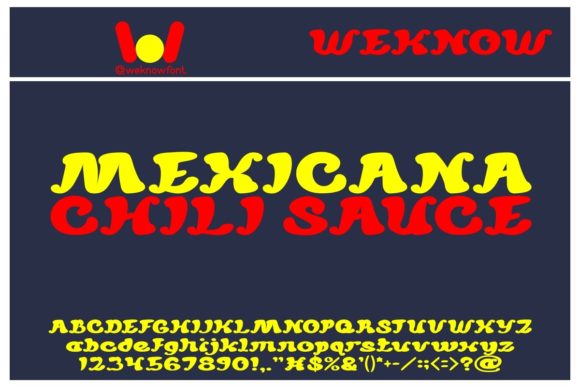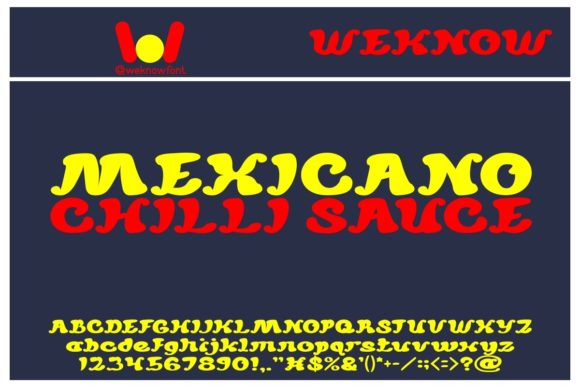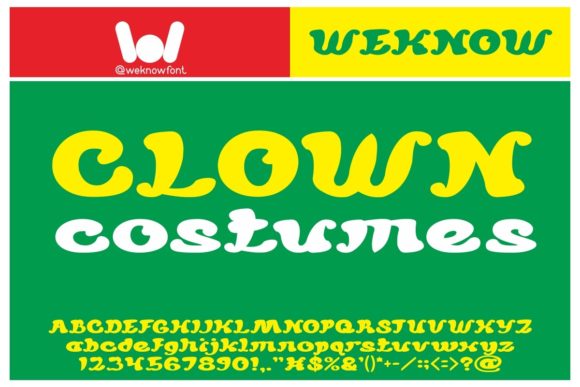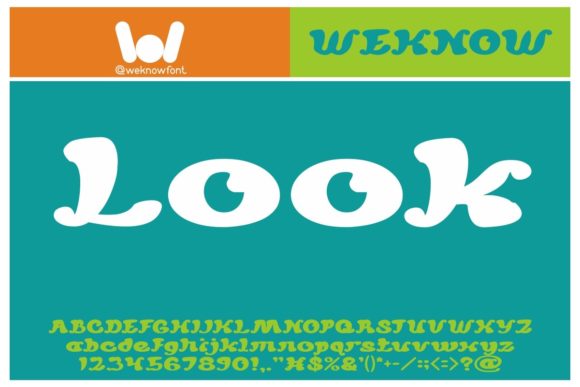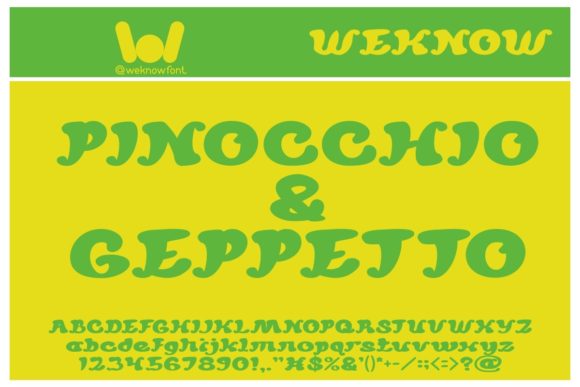
Mexicana Chili Sauce
Mexicana Chili Sauce: A Fancy and Versatile Slab Serif Font Family
Mexicana Chili Sauce is a distinctive slab serif font family that combines fanciness with versatility. This stylish typeface is designed to enhance a wide range of creative projects, making it a valuable addition to any designer’s toolkit.
Key Features of Mexicana Chili Sauce
• Fancy Design: Offers elegant and decorative letterforms that add sophistication to designs.
• Font Family: Includes multiple weights or styles for versatile use in different contexts.
• Slab Serif Structure: Incorporates the characteristic thick, rectangular serifs typical of slab serif fonts.
• Versatile Application: Suitable for a wide range of projects, from logos to digital content.
• Eye-Catching Details: Unique characteristics that make designs stand out with a fancy flair.
Ideal Uses for Mexicana Chili Sauce
This font family is particularly well-suited for:
• Logos and logotypes
• Headlines and titles
• Corporate and brand identity
• Apparel industry designs
• Posters and promotional materials
• Music and movie graphics
• Game design elements
• Magazine and book covers
• Comic and cartoon titles
• Social media content (YouTube, Instagram)
• Website headers and digital content
When incorporating Mexicana Chili Sauce into your designs, consider these tips:
• Use for headlines or short blocks of text to showcase its fancy and stylish character
• Experiment with different weights and styles within the family for varied visual impact
• Take advantage of its versatility across various creative projects
Mexicana Chili Sauce is an excellent choice for designers looking to add a fancy and versatile slab serif font family to their typographic toolkit. Its ability to enhance various design projects with a touch of elegance makes it stand out in the world of typography. Whether you’re working on logo designs for sophisticated brands, creating layouts for magazines, or developing content for digital platforms, Mexicana Chili Sauce offers the perfect blend of style and adaptability.
Furthermore, Mexicana Chili Sauce’s versatility allows it to shine in various contexts. From vintage-inspired designs with a modern twist to more playful layouts that need a touch of sophistication, this font family can elevate your projects. Its fancy style works particularly well in designs that require a thoughtful and refined mood.
In conclusion, Mexicana Chili Sauce is a font family that truly lives up to its name, offering a spicy blend of style and versatility. Its ability to work well in both elegant, minimalist projects and more elaborate layouts showcases its flexibility. For those looking to add a touch of fancy style with a timeless feel, Mexicana Chili Sauce can even enhance themed creations with its unique, sophisticated twist.